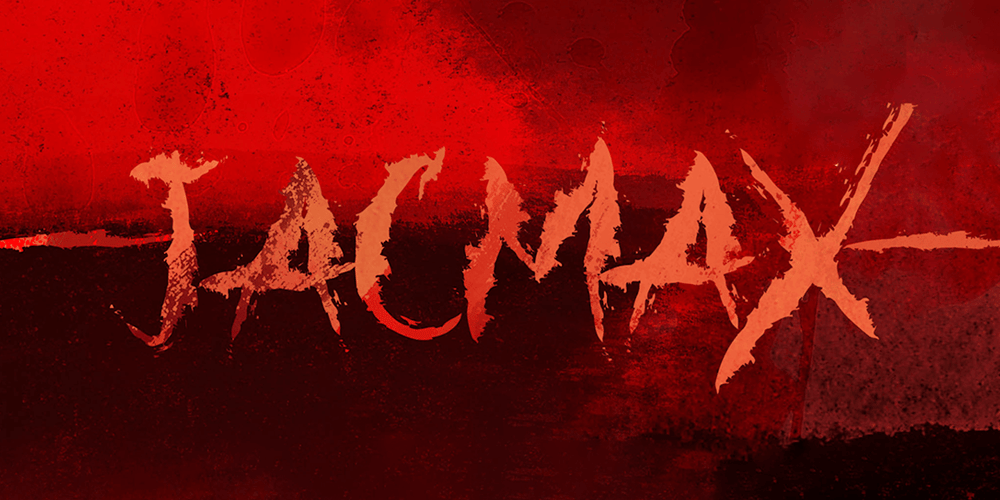
Jacmax Font Family was designed by Virgiawan Listanto and published by Stringlabs Creative Studio. Jacmax contains 1 styles and family package options. Jacmax is display font with horror and scary style. Jacmax has unique design that is combined with decorative horror style. This font is perfect for your horror projects, such as: Movie Posters, Lettering on Cover Books, Album music covers, Logo Brand, and much more.